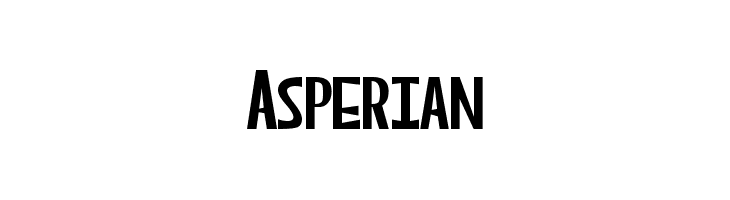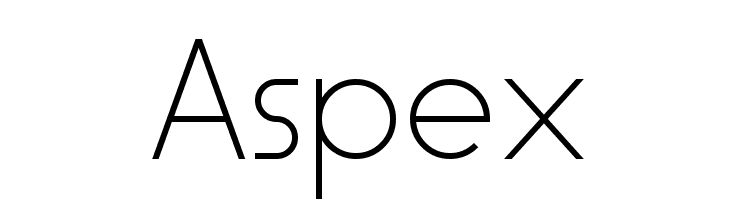
• Asperian 字体
( Xerographer Fonts - Max Infeld - xerographer.blogspot.com )
A bold, geometric font with angular characters and strong lines.
• Aspex 字体
( Peter de Klerk - valleyofzion.zz.mu )
A modern, geometric sans-serif font with clean lines and balanced spacing.
• Asphalt crack 字体
( Fonts by Gassstype )
A bold, distressed font with a rugged, cracked texture.
• Asphalt crack 字体
( Fonts by Gassstype )
A bold, distressed font with a rugged, textured appearance.
A bold, textured font with a rugged, vintage feel.
A bold, distressed font with a rugged, industrial appearance.
• ASPHALTIC SCRATCH(RUS BY LYAJKA 字体
A bold, distressed font with a gritty, textured appearance ideal for edgy designs.
• Aspire DemiBold 字体
( Reference Type Foundry )
An elegant, flowing script font with ornate uppercase and cohesive lowercase letters.
• Asrelurio St 字体
( Southype - Rodrigo Gonzalez - www.southype.com )
A modern, decorative font with diagonal stripe patterns in each character.
• Ass Backwards 字体